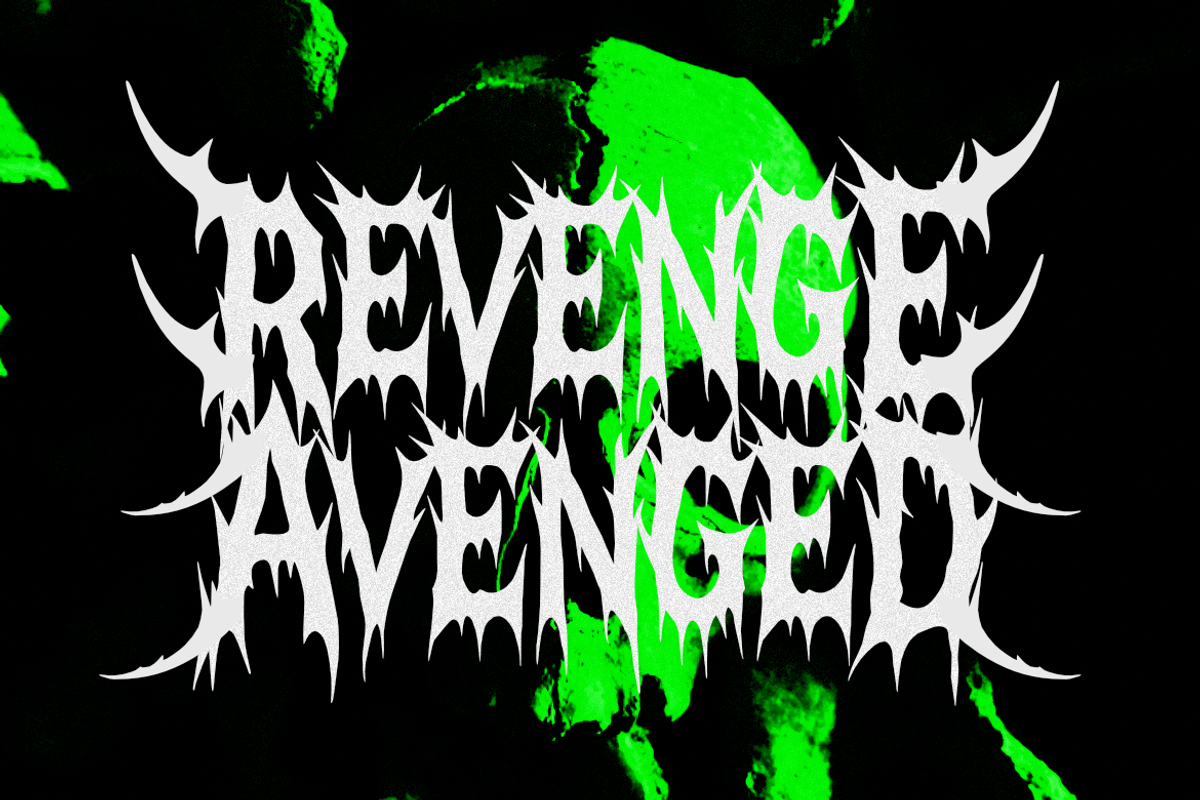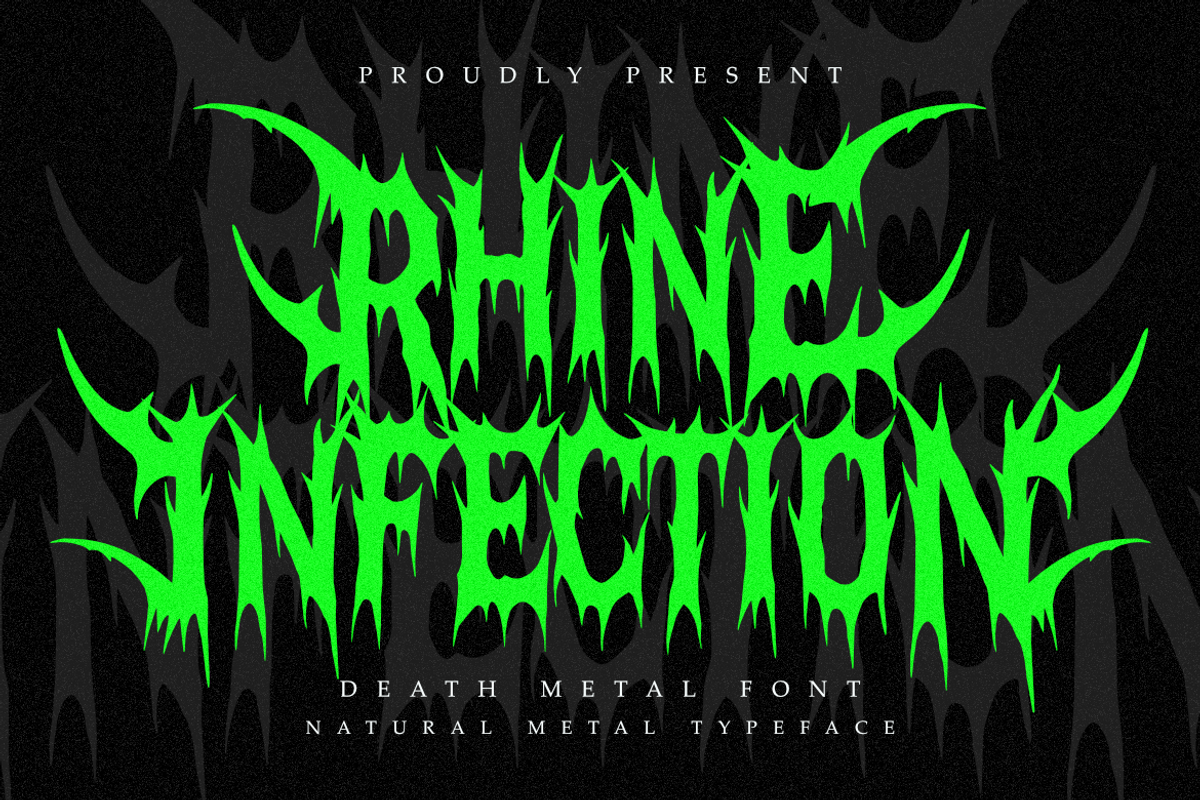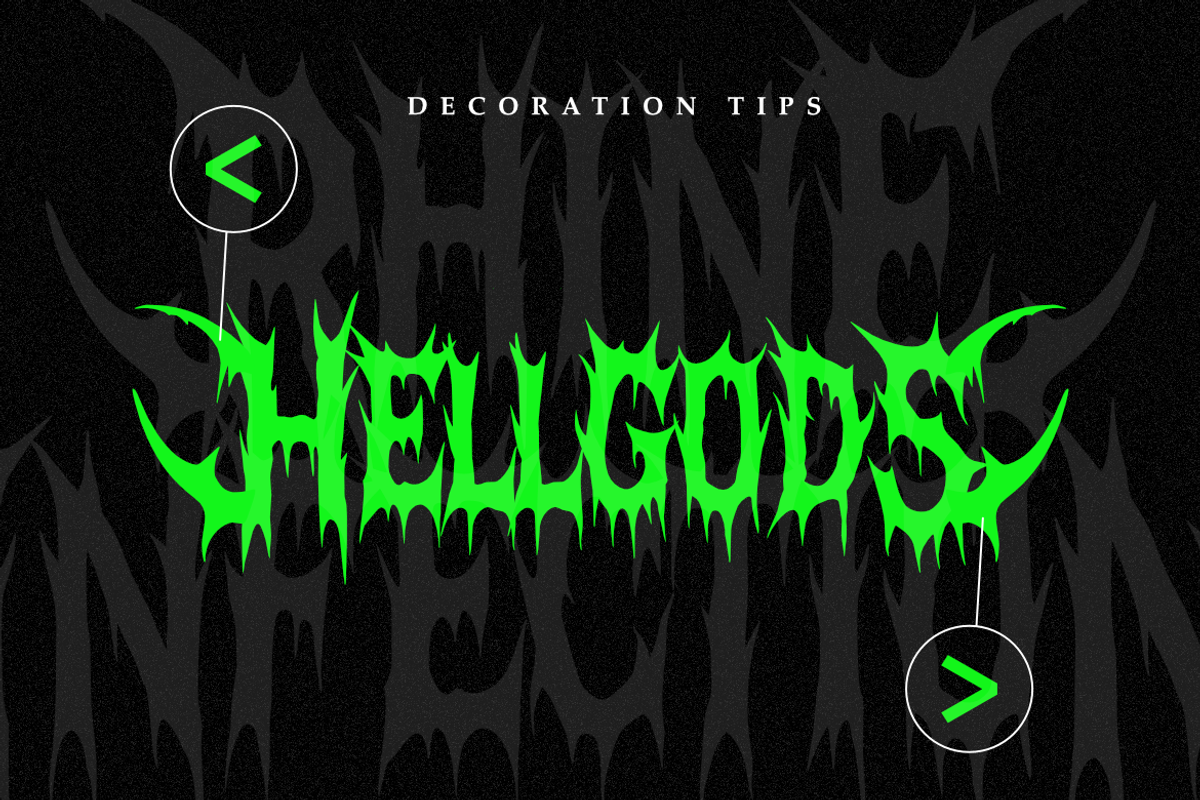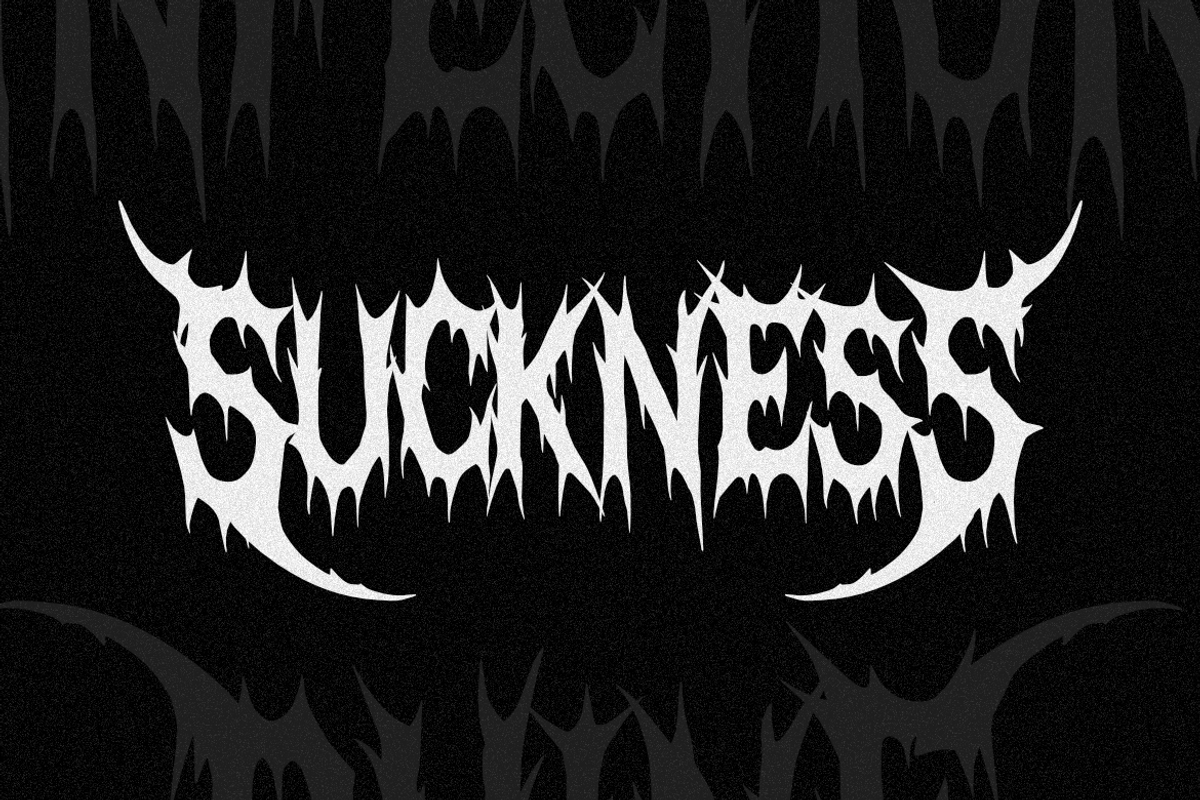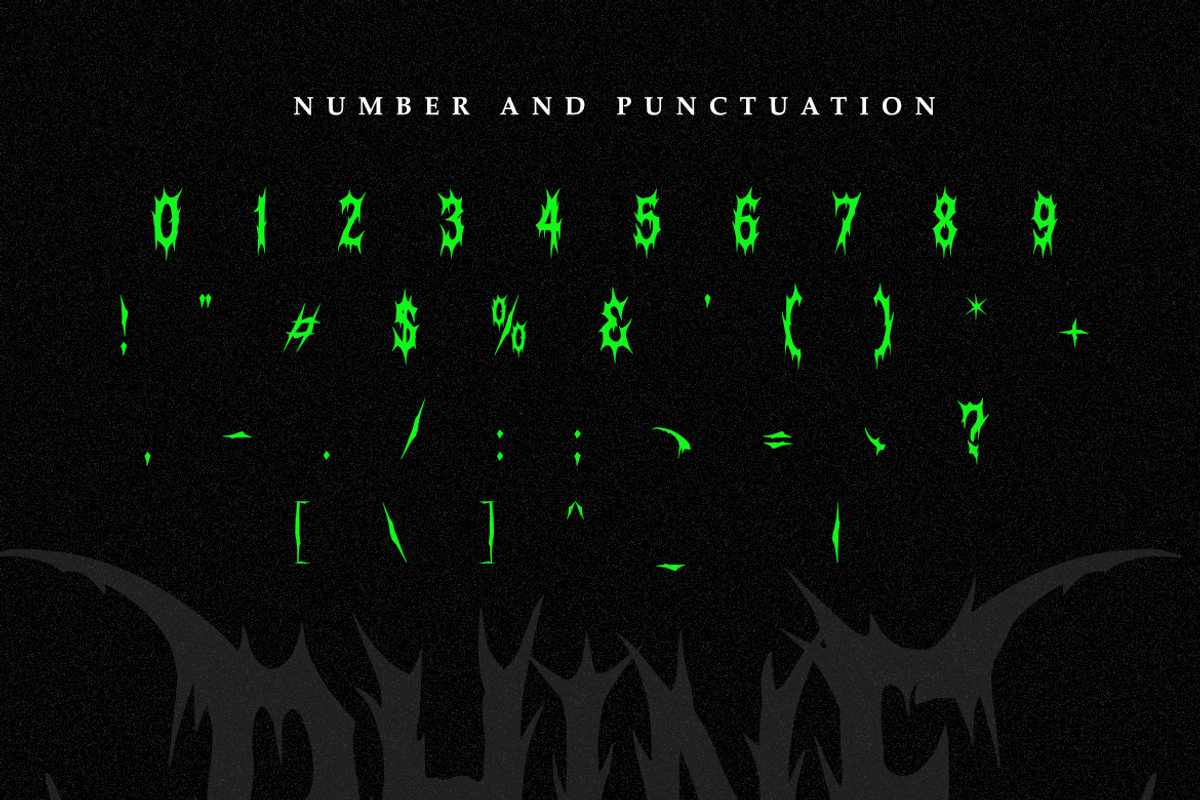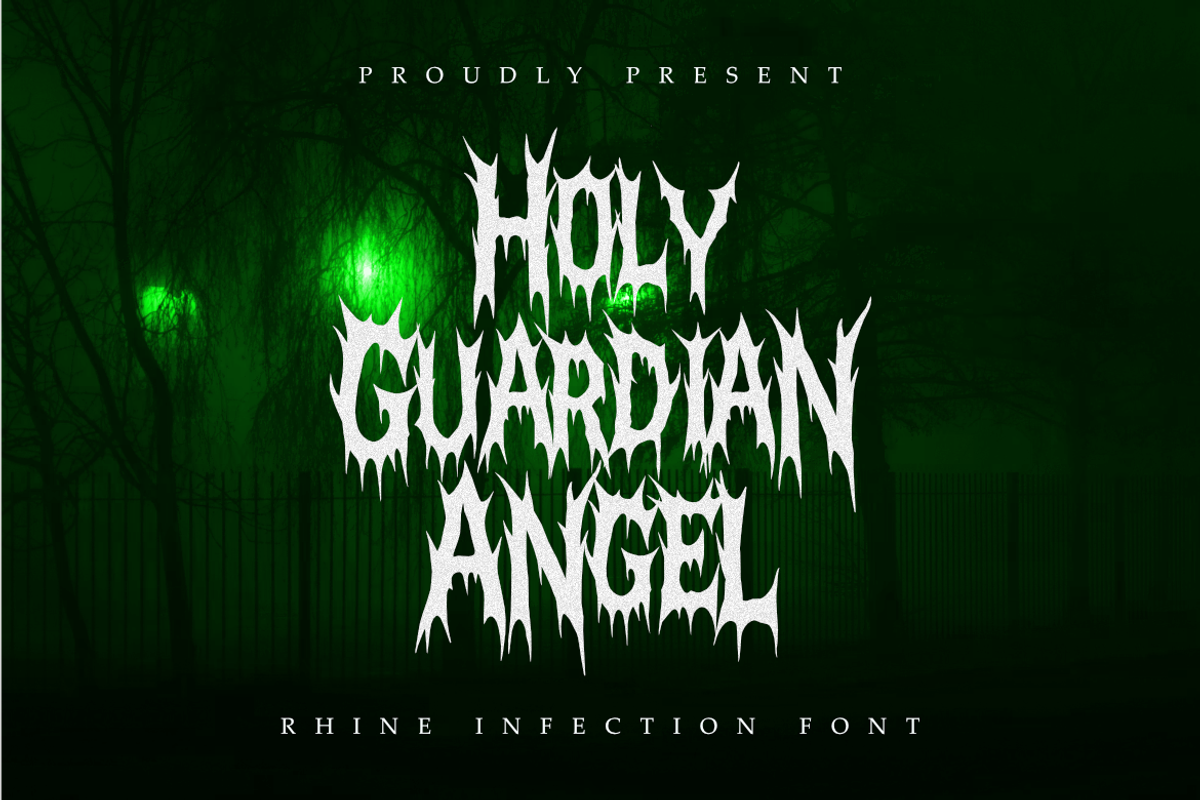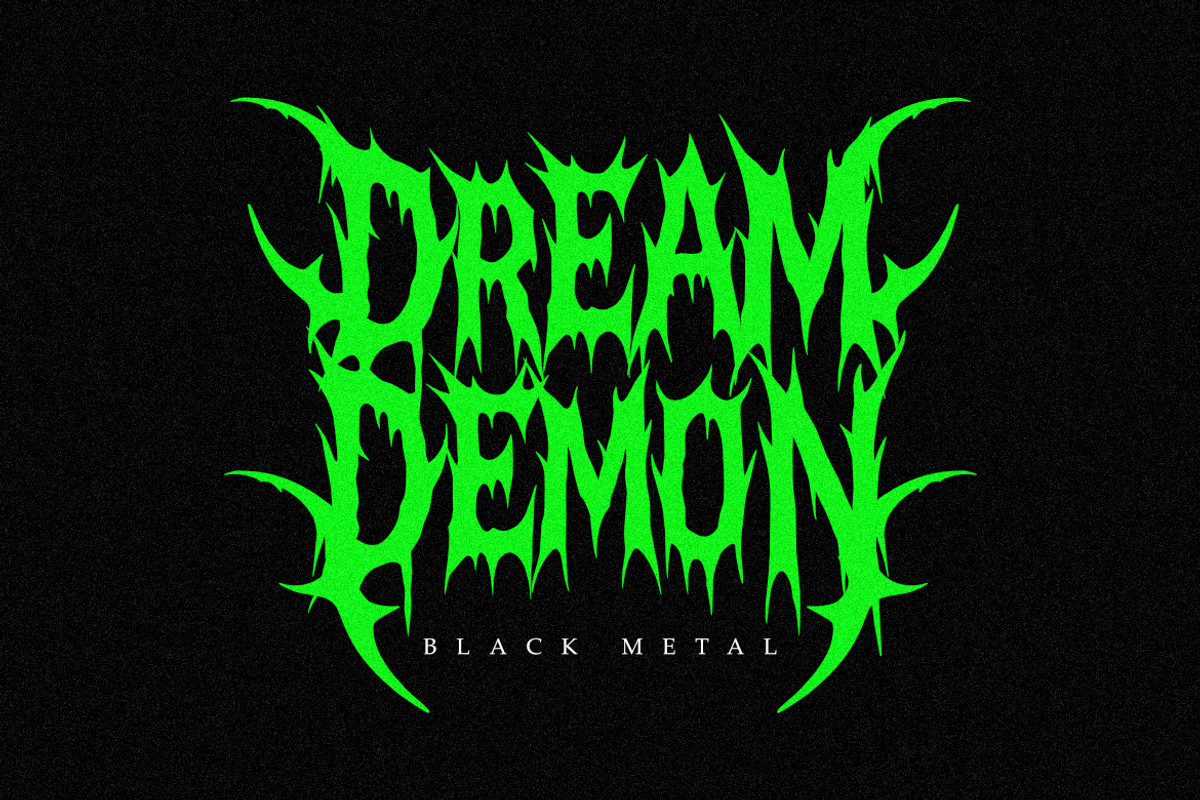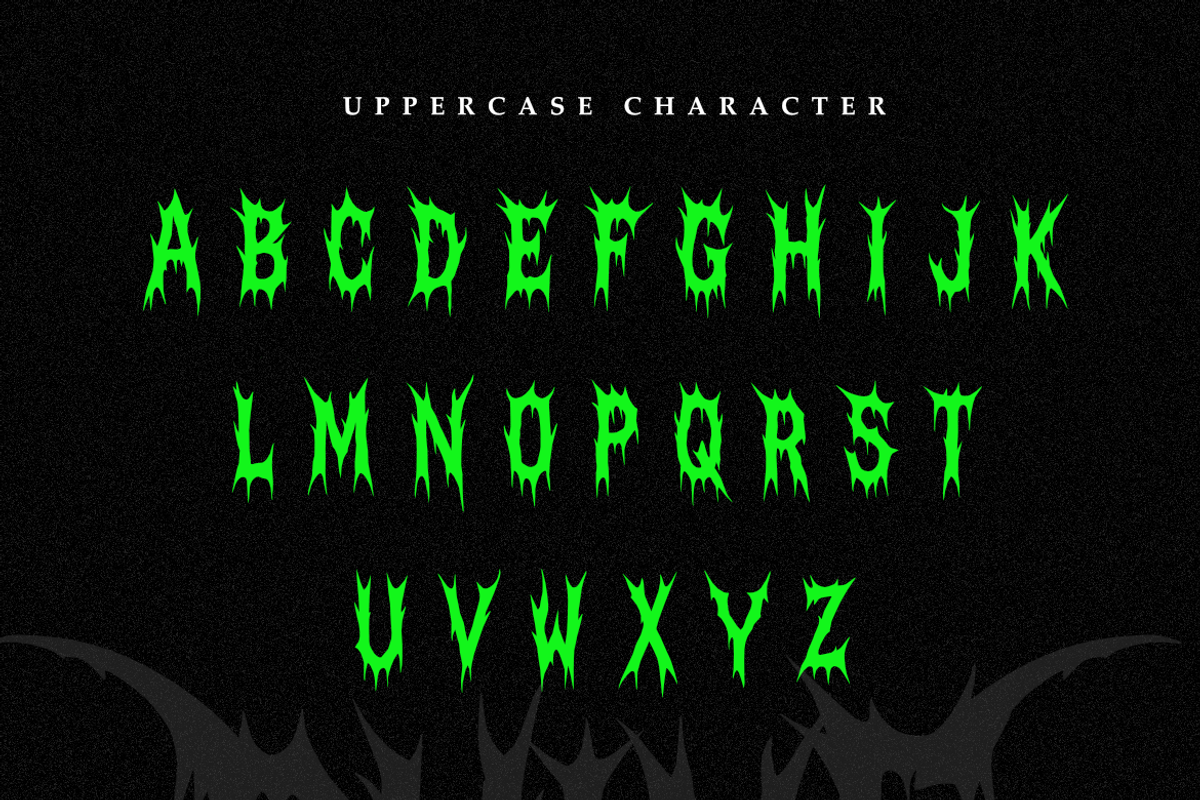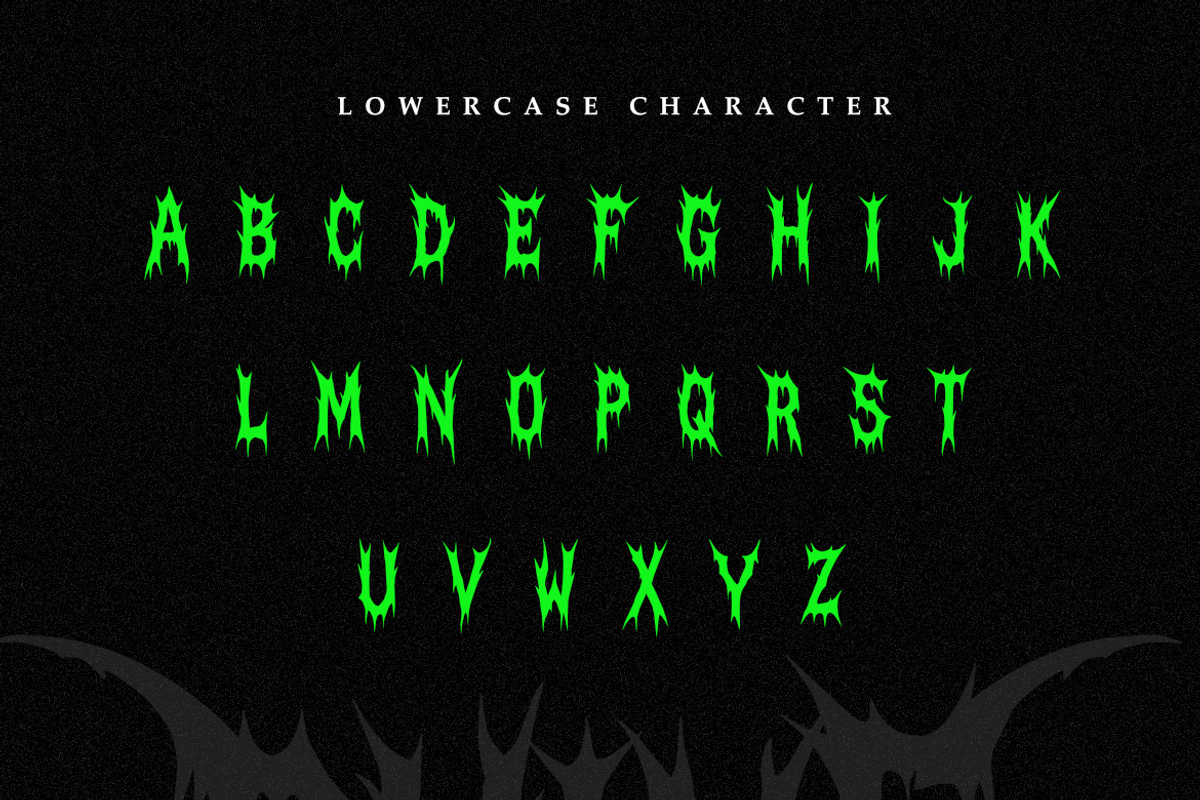
Rhine Infection - Death Metal Font
Rhine Infection is a brutal death metal font inspired by extreme music culture, underground visuals, and dark graphic aesthetics. Featuring sharp edges, dripping forms, and aggressive letter structures, this typeface delivers a raw and intense visual impact.
This font is designed for projects that demand a bold and extreme character, making it ideal for music artwork, band logos, posters, event promotions, album covers, and dark-themed visual designs. Its handcrafted metal style creates a strong identity that stands out instantly.
Rhine Infection works best for display purposes where powerful typography is needed to convey intensity, darkness, and rebellion. The font is fully compatible with modern design workflows and optimized for both print and digital use.
Font Features: – uppercase characters – unique handcrafted letterforms – strong display style – easy to use
Perfect for: – metal and hardcore music design – band logos and album artwork – posters and flyers – music events and promotions – dark and horror-themed visuals – experimental and underground design